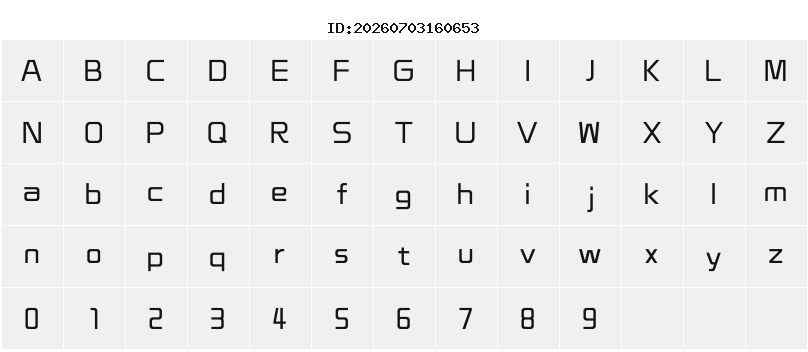
005-上首时尚体 Preview
• Font Name: 005-上首时尚体
• Full Font Name: 005-上首时尚体
• Manufacturer: 上首造字
About 005-上首时尚体.ttf
005-上首时尚体.ttf is a modern, elegant sans-serif font designed for ultimate readability and visual harmony. Perfect for branding, headlines, web design, and print materials.